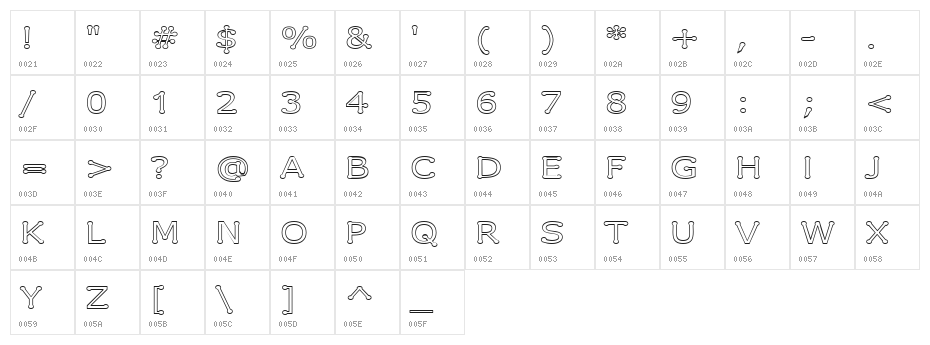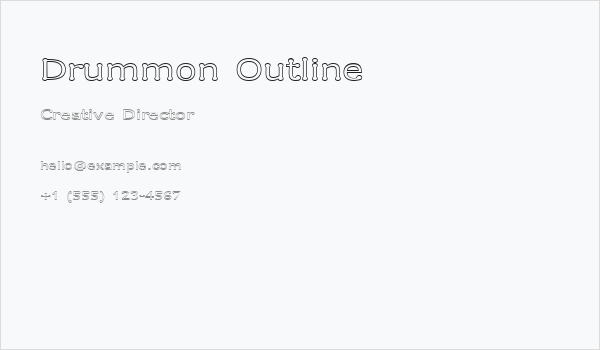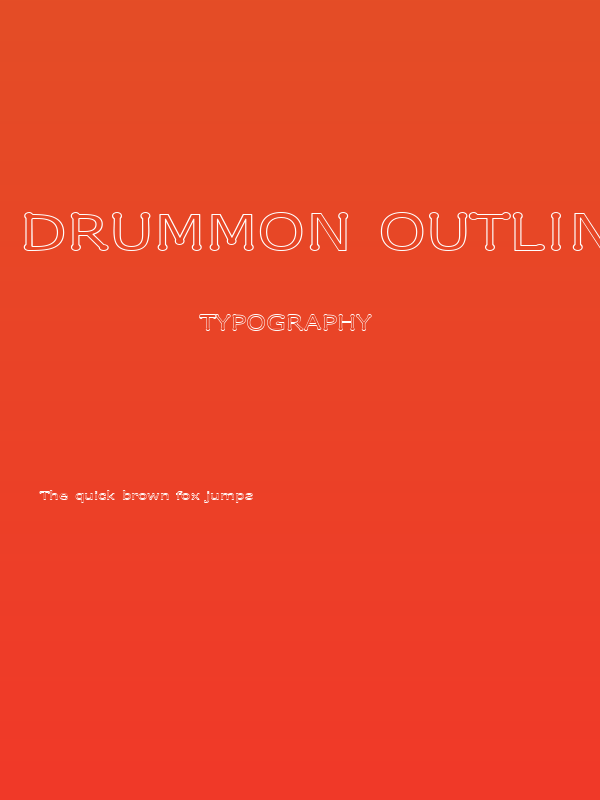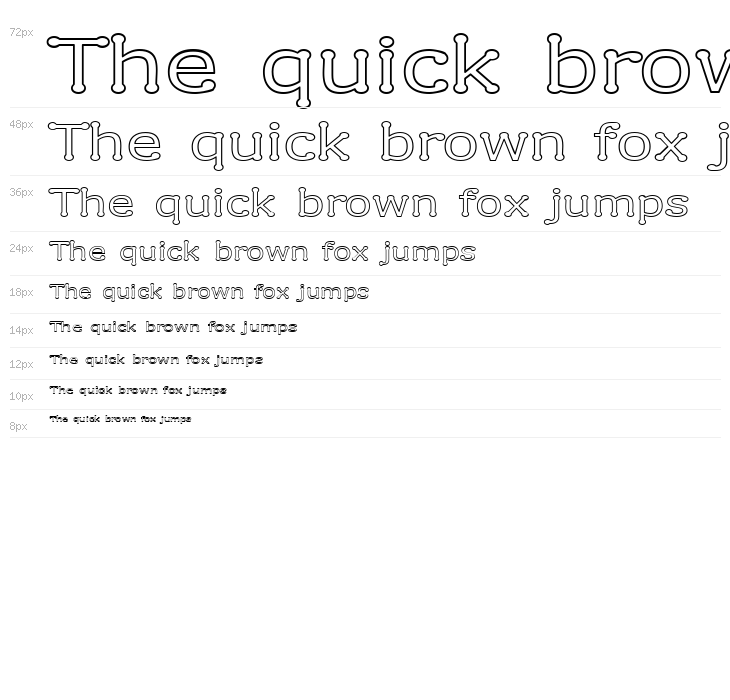
Drummon Outline Font
Drummon Outline Description
This font features a distinctive outline style, where each character is defined by a bold, continuous line that forms its outer edge. The design is clean and geometric, with uniform stroke widths that create a balanced and harmonious appearance. The uppercase and lowercase letters maintain a consistent height and width, contributing to a cohesive look. The numerals and special characters follow the same outlined aesthetic, ensuring a unified presentation across all glyphs. This font's simplicity and clarity make it highly legible, even at smaller sizes, while its unique outline design adds a modern and stylish touch.